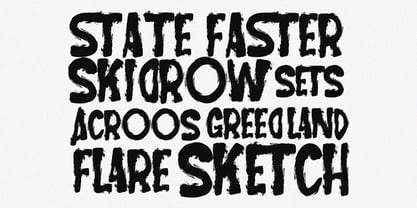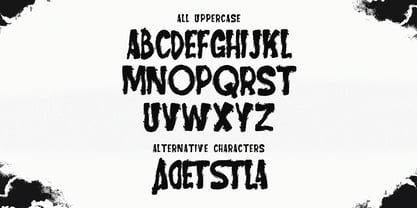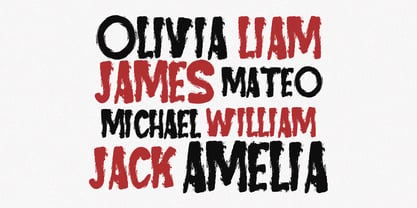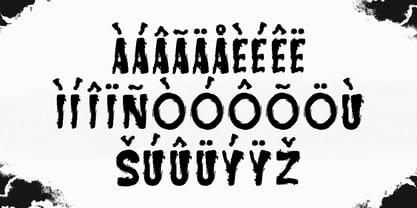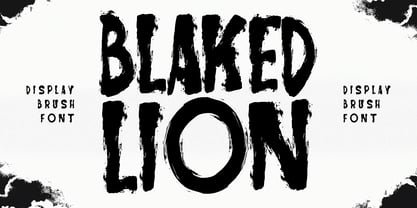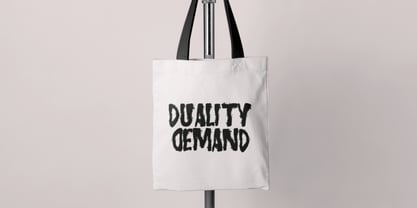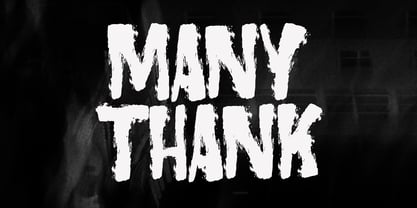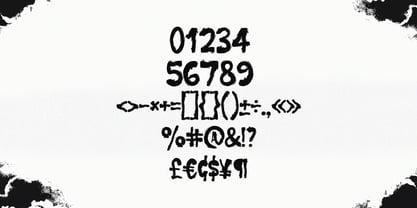
MC Blaked Lion
by Maulana Creative
The MC Blaked Lion Font Family was designed by Gilang Maulana and published by Maulana Creative. MC Blaked Lion contains 1 styles. More about this family
Blaked Lion handmade brush display font, fun character with alternates and ligatures. To give you an extra creative work. Blaked Lion handmade brush display font support multilingual language.
Designers: Gilang Maulana
Foundry: Maulana Creative